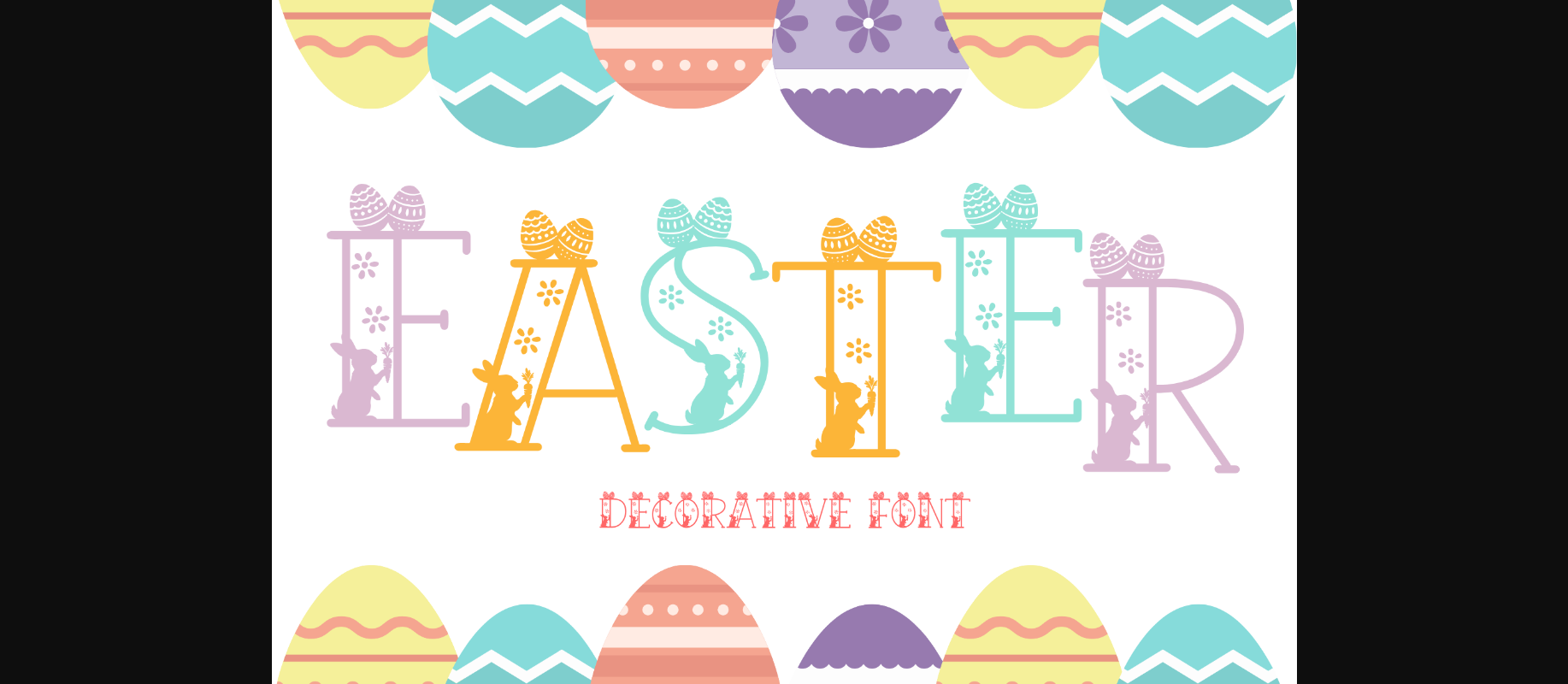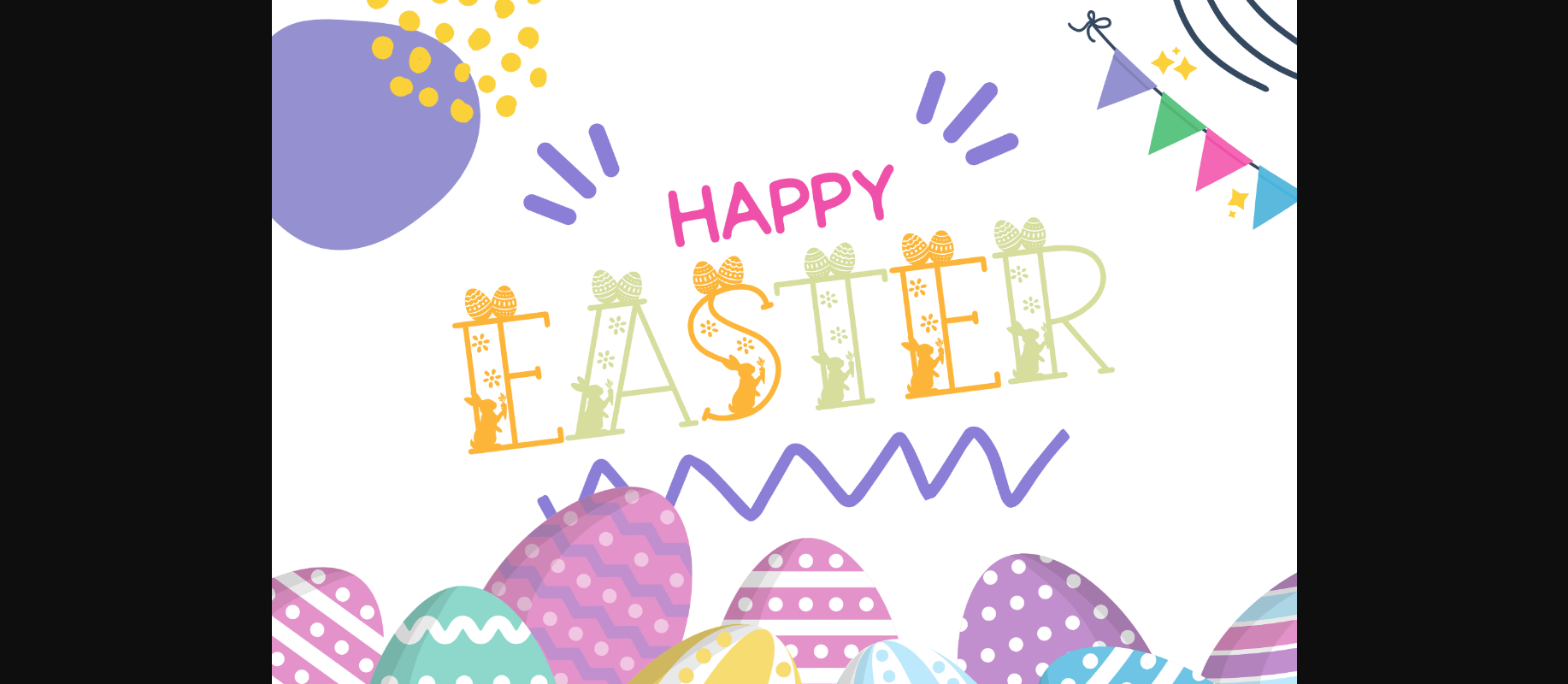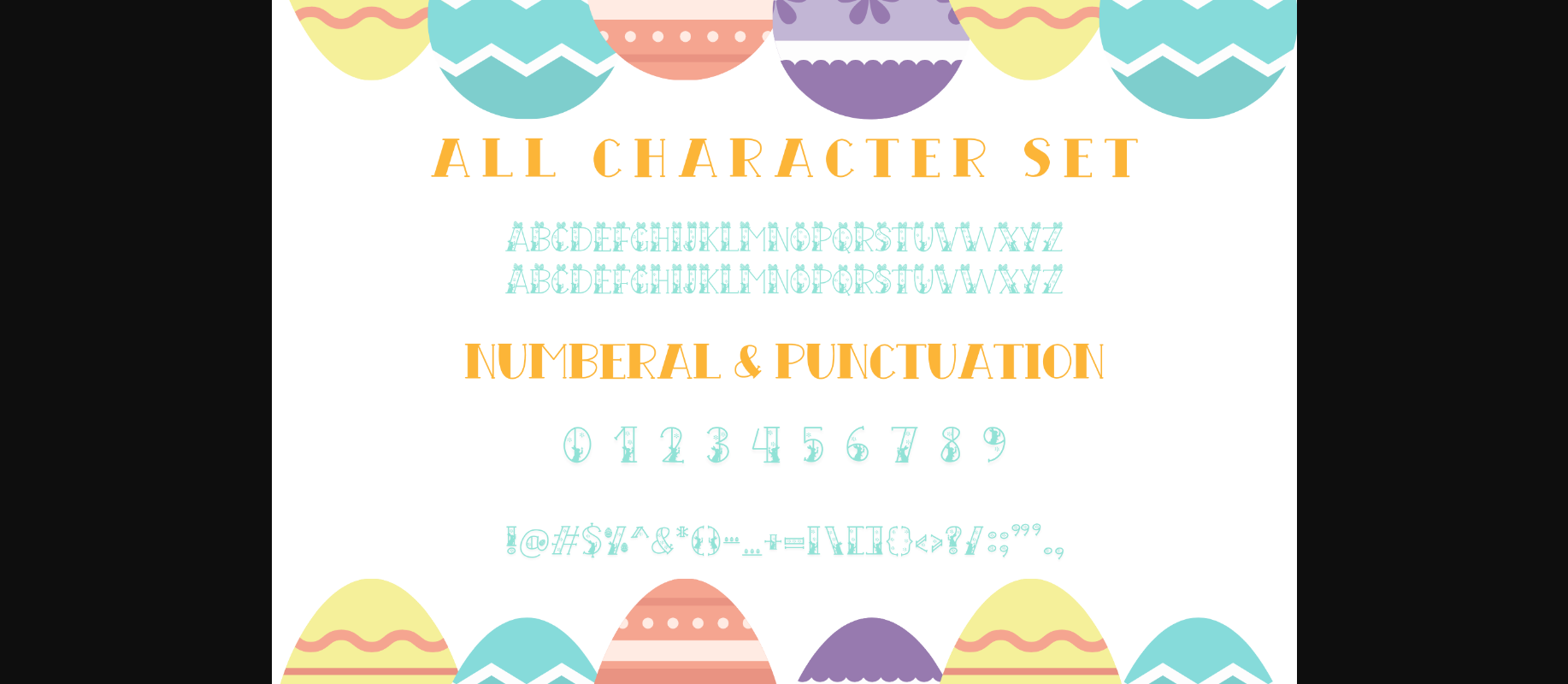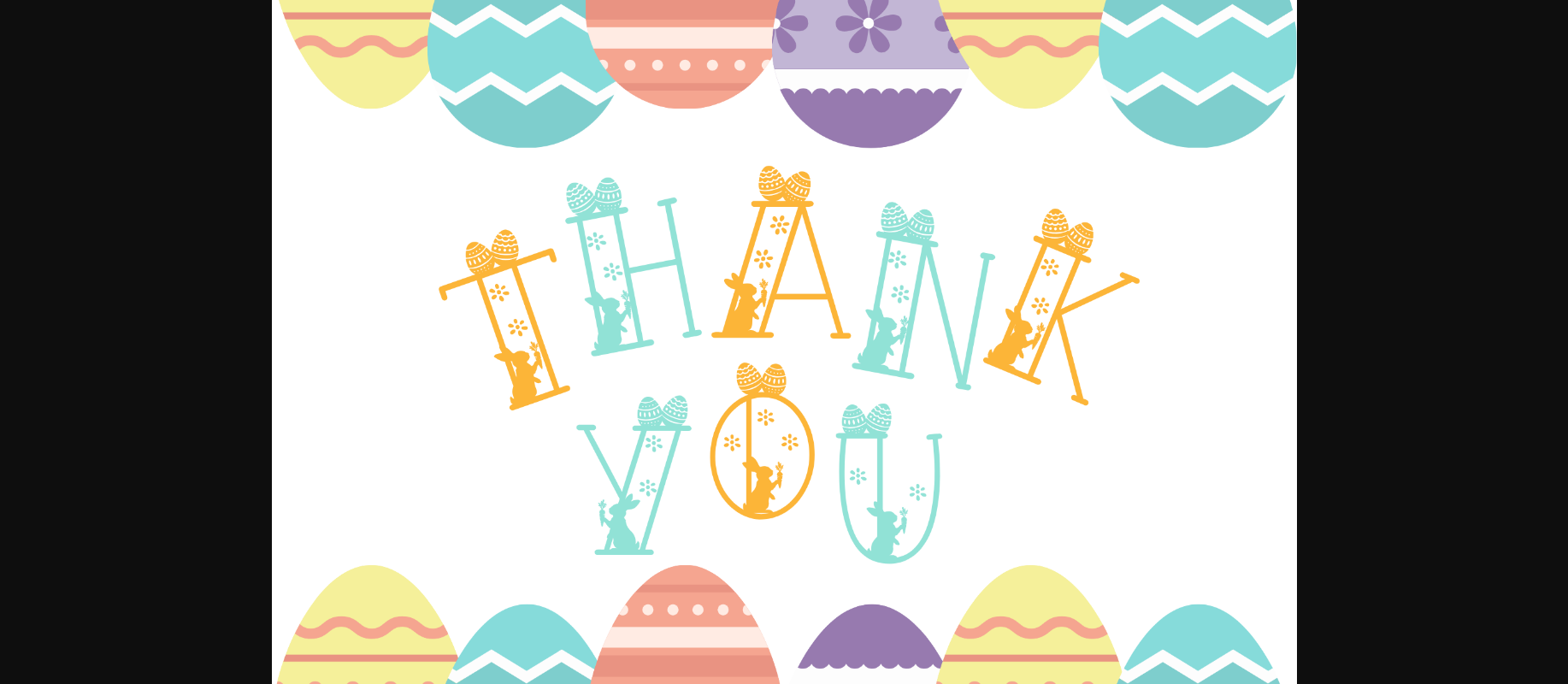
Easter Day Font
About Easter Day Font
Easter Day is an Easter Day decorative font. It embodies playfulness and authenticity and is the perfect choice for all your favorite projects, or even for blog posts, logos, branding, ads, invitations, greeting cards, planners, photo albums, decorations, and much more. Add it to any of your designs, and enjoy the results!